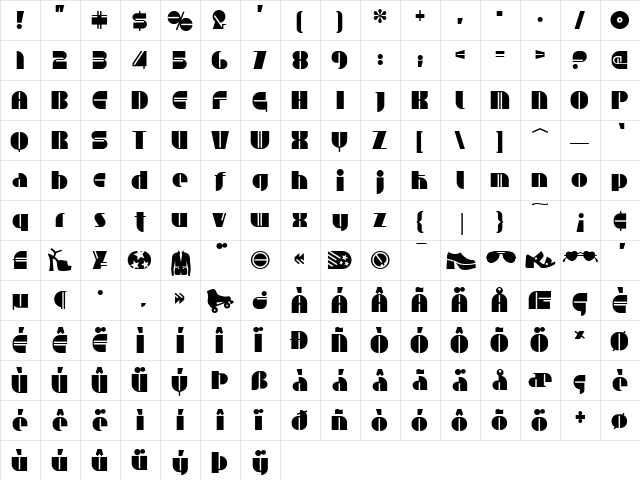
Toisy Greek Regular
| Foundry | Victor Yb Delgado |
| Designer | Victor Yb Delgado |
Design Context for Toisy Greek Typeface
Toisy Greek is a composed and adaptable typeface that performs quietly and consistently across a wide range of design contexts.